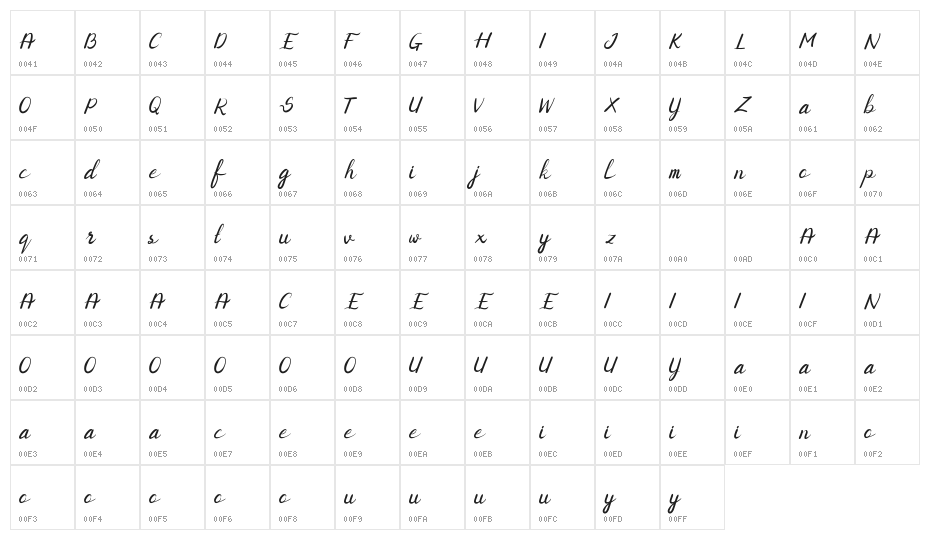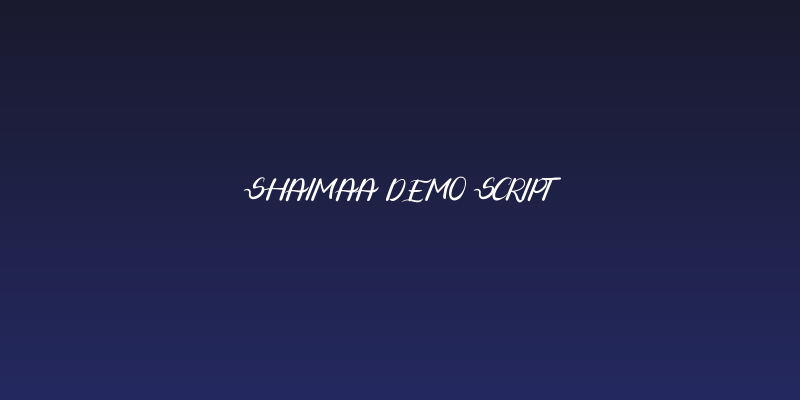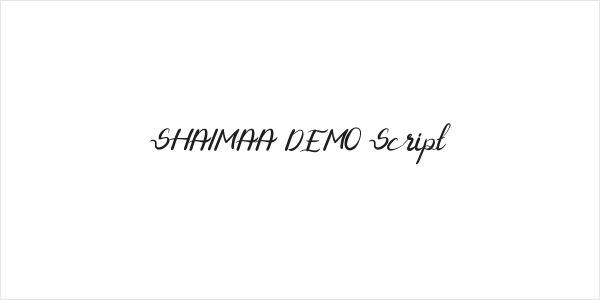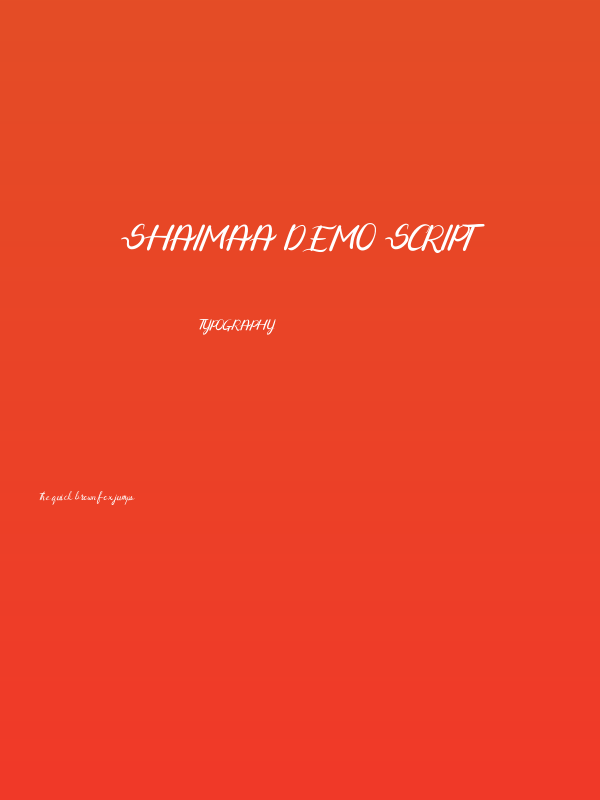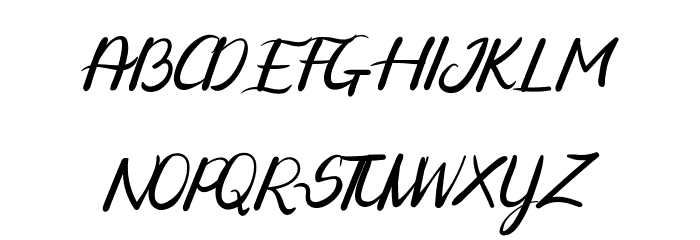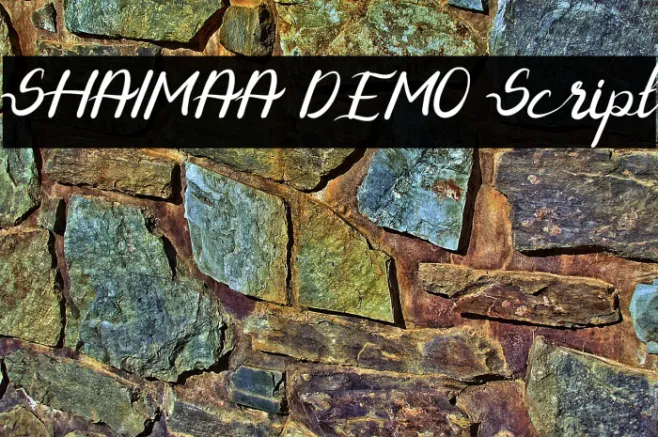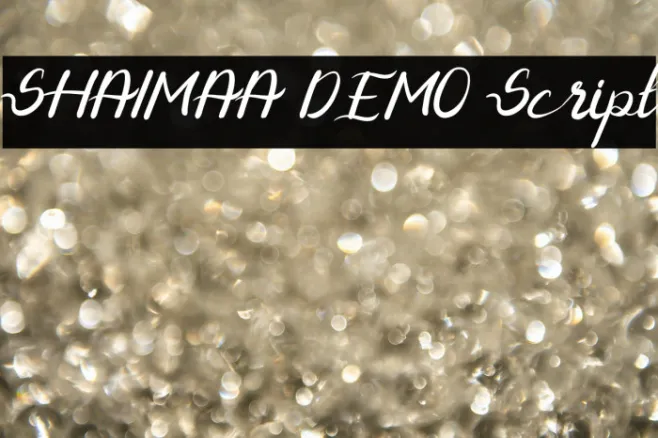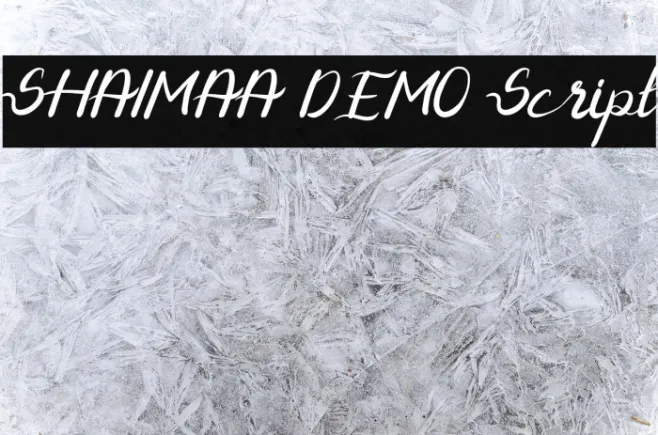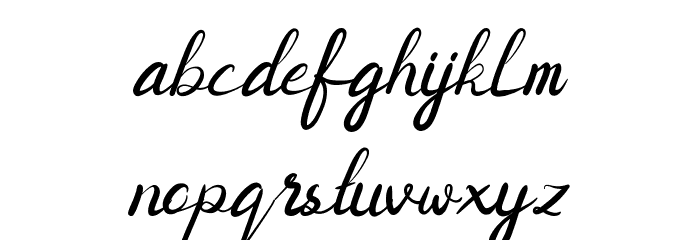
SHAIMAA DEMO Script Font
SHAIMAA DEMO Script Description
This script font features elegant, flowing lines with a handwritten style that exudes sophistication and charm. The uppercase letters are bold and slightly slanted, giving a sense of movement and fluidity. The lowercase letters maintain a consistent style, with smooth curves and delicate strokes that enhance readability. The font's design is both artistic and functional, making it suitable for a variety of creative projects. Its unique character is highlighted by the subtle variations in stroke thickness, adding depth and personality to each letter. The overall appearance is graceful and stylish, perfect for conveying a sense of elegance and refinement.